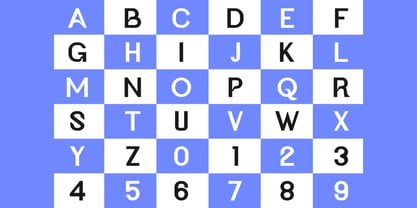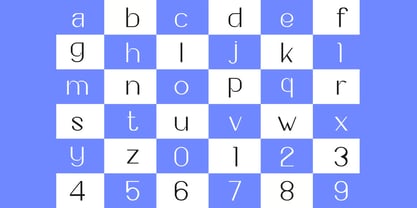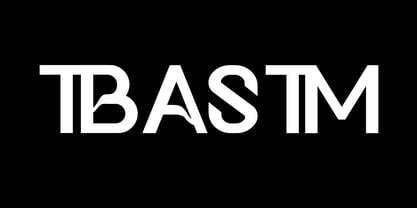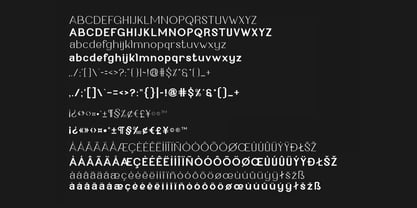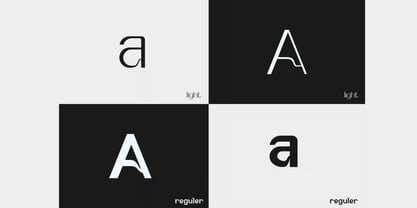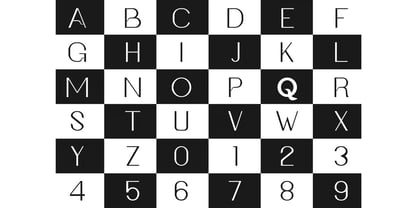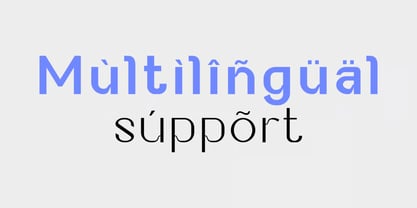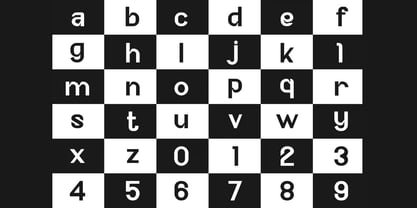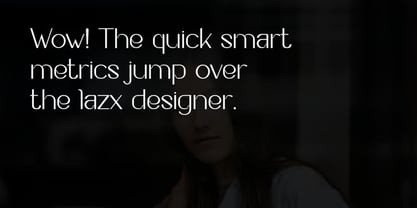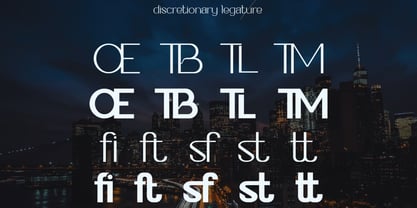
Tbastm
Tbastm is a modern sans logo display font crafted to deliver a clean, bold, and professional visual identity. Designed with contemporary letterforms and strong geometric balance, Tbastm offers the perfect combination of simplicity, versatility, and impact, making it an excellent choice for logo design, branding projects, and modern display typography.
With its authentic style and carefully crafted structure, Tbastm is built for designers who need a typeface that feels both modern and memorable. Whether you're creating a startup logo, corporate identity, product packaging, website header, social media campaign, or promotional graphic, this font provides the clarity and confidence needed to make your message stand out.
Featuring Regular and Light styles, Tbastm gives you the flexibility to create everything from bold brand marks to elegant editorial layouts while maintaining a consistent and professional appearance.
Key Features:
• Modern Sans Display Design: Clean and contemporary letterforms for professional branding.
• Logo-Focused Typography: Perfectly suited for logo creation and visual identity design.
• Regular & Light Styles: Flexible font family for versatile design applications.
• Uppercase & Lowercase Characters: Complete character set for creative freedom.
• Ligatures: Stylish letter combinations for smooth and distinctive typography.
• Numbers & Symbols: Essential characters for branding and commercial projects.
• Punctuation Included: Complete punctuation set for professional typography.
• Multilingual Support: Supports multiple languages for international projects.
Perfect For:
• Logo & Brand Identity Design: Create memorable and modern brand marks.
• Corporate Branding: Professional typography for businesses and startups.
• Packaging Design: Clean and impactful product presentation.
• Website Headers & UI Design: Modern typography for digital experiences.
• Advertising & Marketing: Eye-catching headlines and promotional materials.
• Social Media Graphics: Create bold and engaging visual content.
• Editorial & Creative Projects: Ideal for magazines, presentations, and display layouts.
Elevate your branding with Tbastm—a modern sans logo display font featuring clean letterforms, stylish ligatures, multilingual support, and versatile Regular & Light styles. Perfect for logos, branding, packaging, websites, advertising, social media, and contemporary design projects.